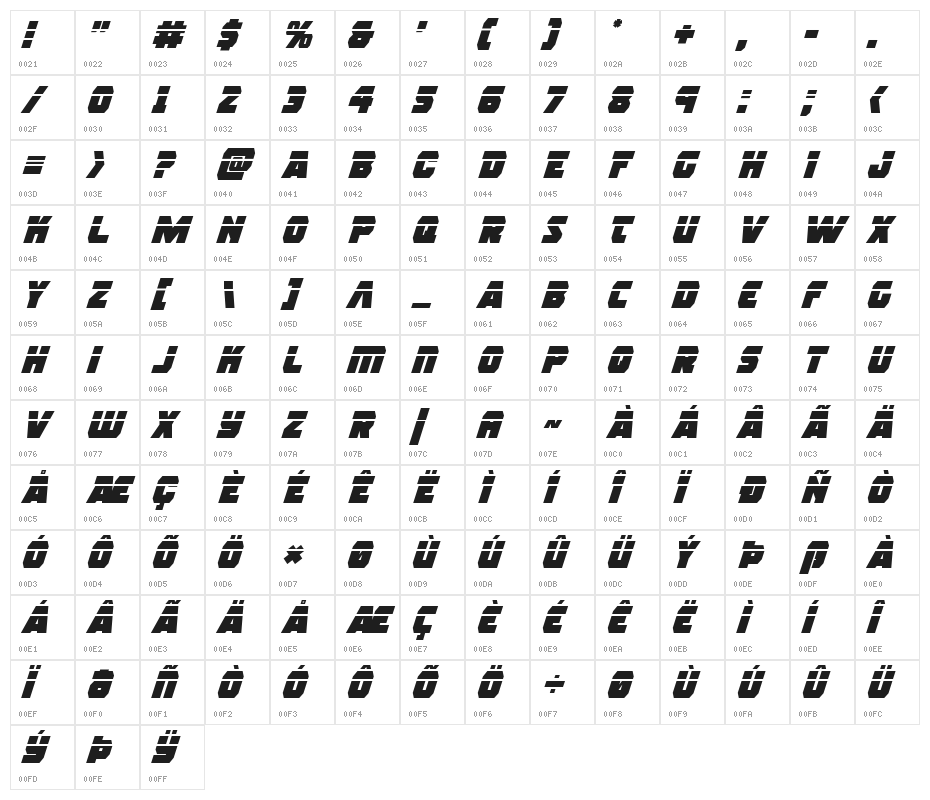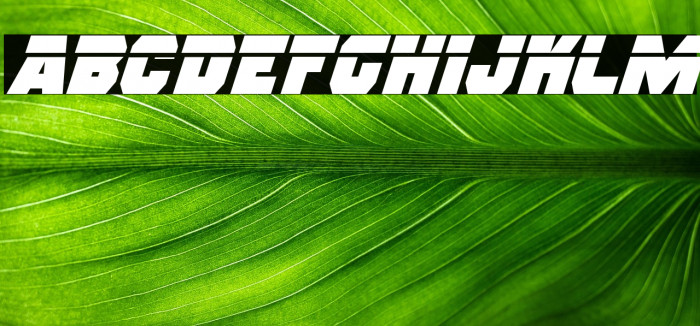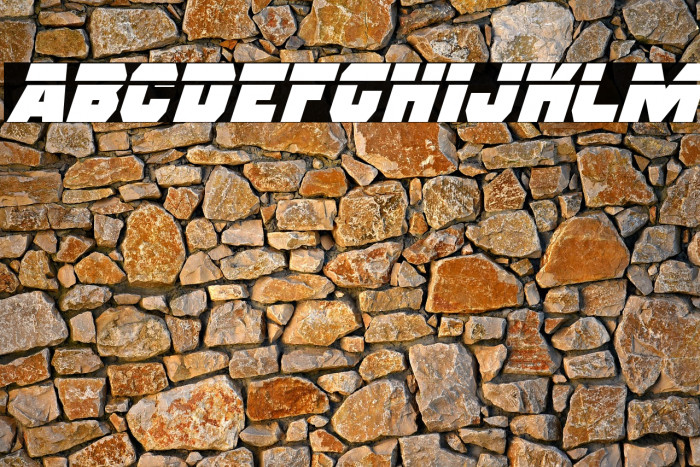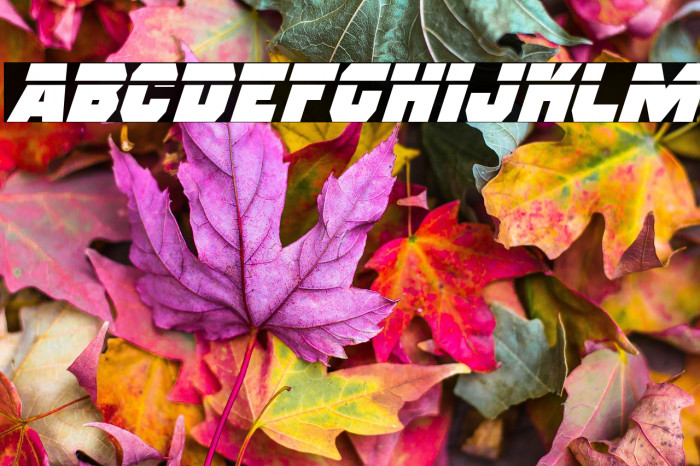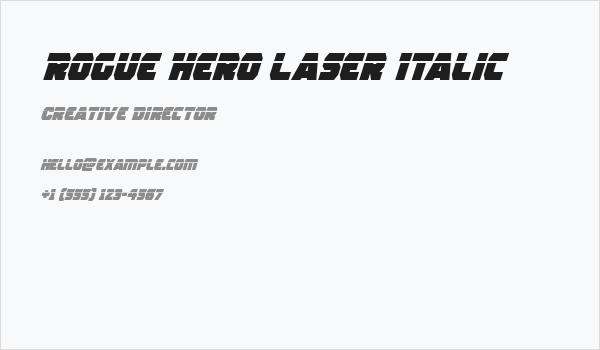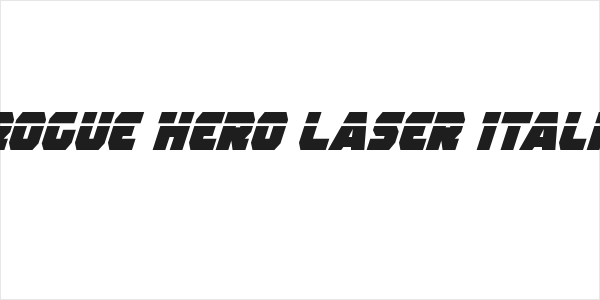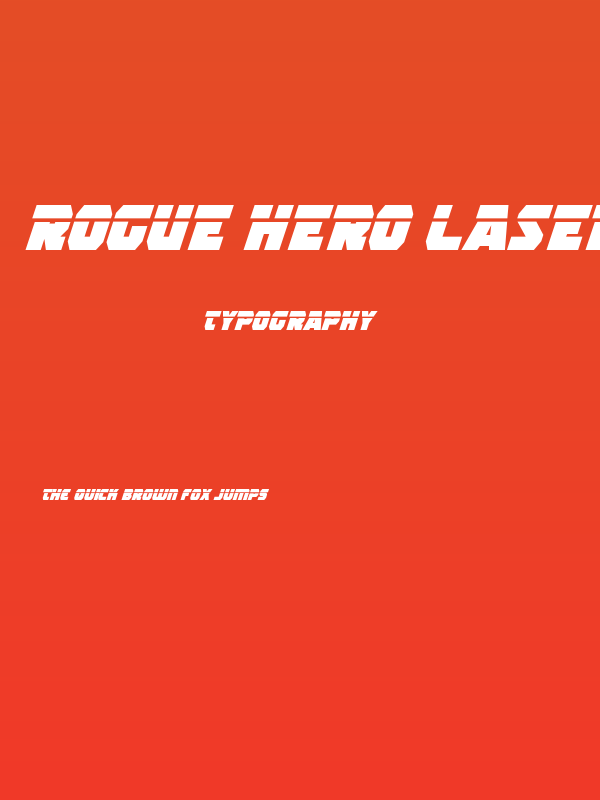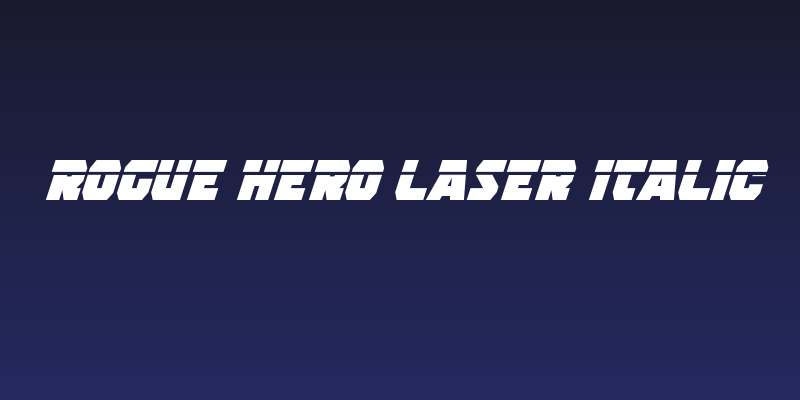
Rogue Hero Laser Italic Font
Rogue Hero Laser Italic Description
This font features a bold, angular design with a futuristic and dynamic appearance. The characters are sharply cut, with a distinct slant that gives them a sense of motion and energy. The uppercase and lowercase letters maintain a consistent style, emphasizing geometric shapes and sharp edges. Numbers and special characters follow the same design principles, ensuring uniformity across all glyphs. The overall aesthetic is modern and edgy, making it suitable for projects that require a strong visual impact.
| Proposed Projects | Ideal for sci-fi themed posters, video game titles, branding for tech companies, and any project needing a modern, energetic look. |